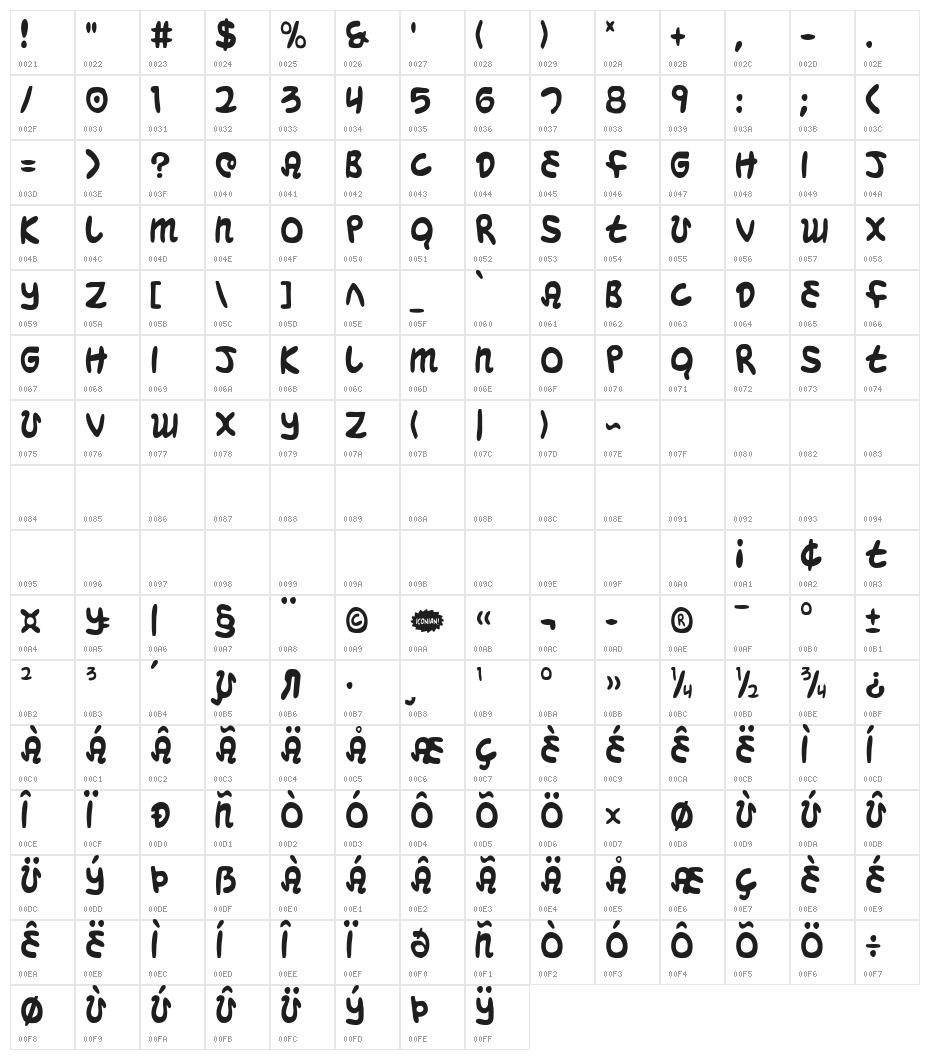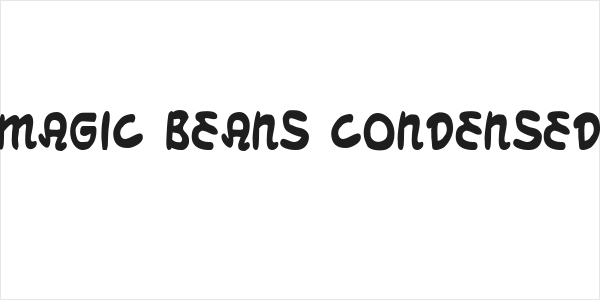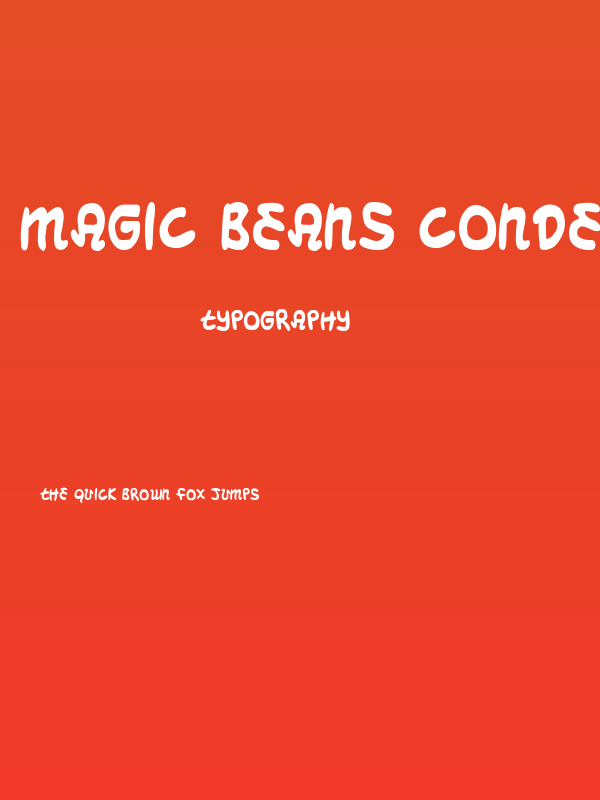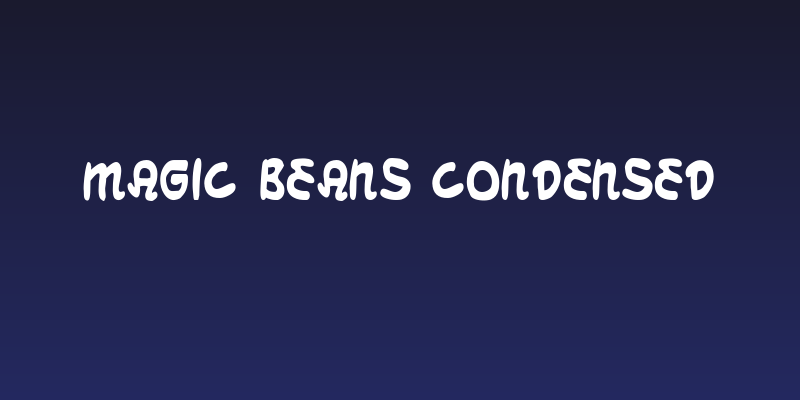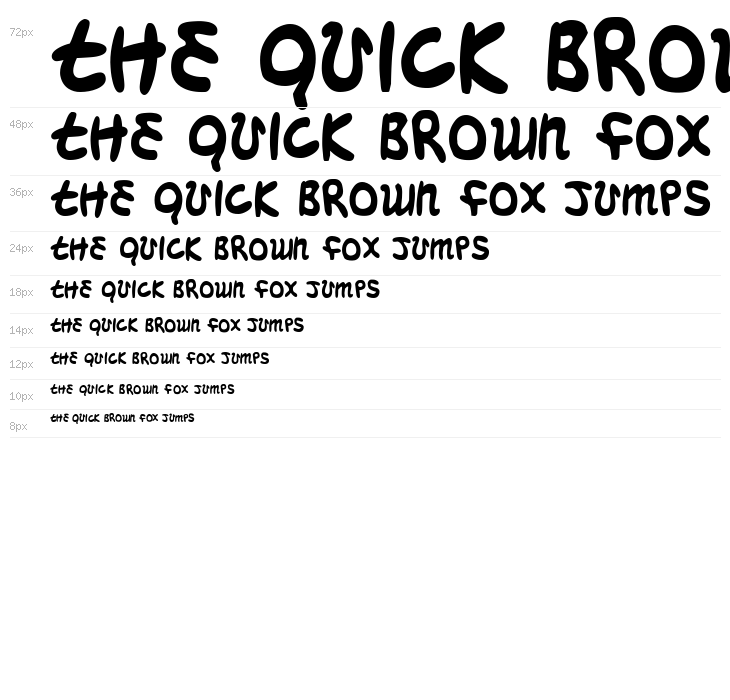
Magic Beans Condensed Font
Magic Beans Condensed Description
This playful and whimsical font features a condensed style with bold, rounded characters. The letters exhibit a hand-drawn, organic feel, with slightly uneven strokes that add to its charm. The uppercase and lowercase letters maintain a consistent style, with a quirky, cartoonish appearance. The numbers and special characters follow the same playful design, making the font suitable for creative and informal projects. Its unique style is eye-catching and memorable, perfect for adding a touch of fun to any design.